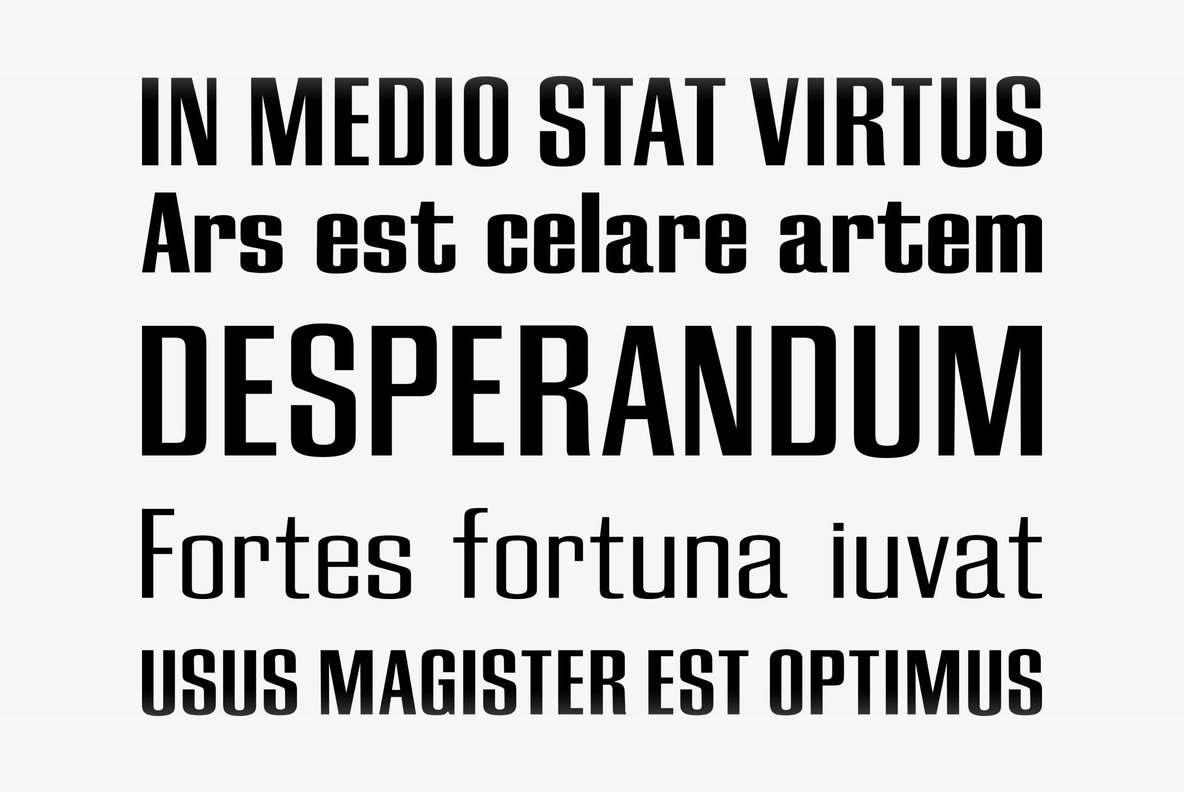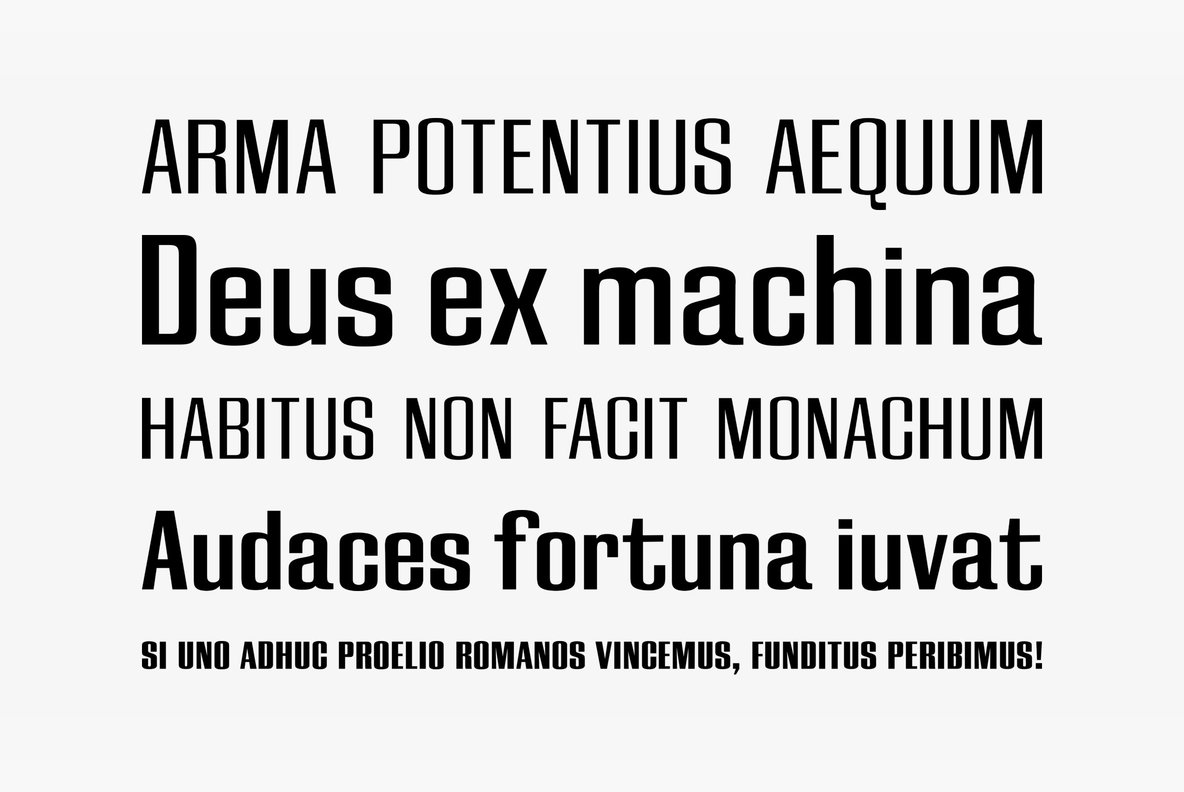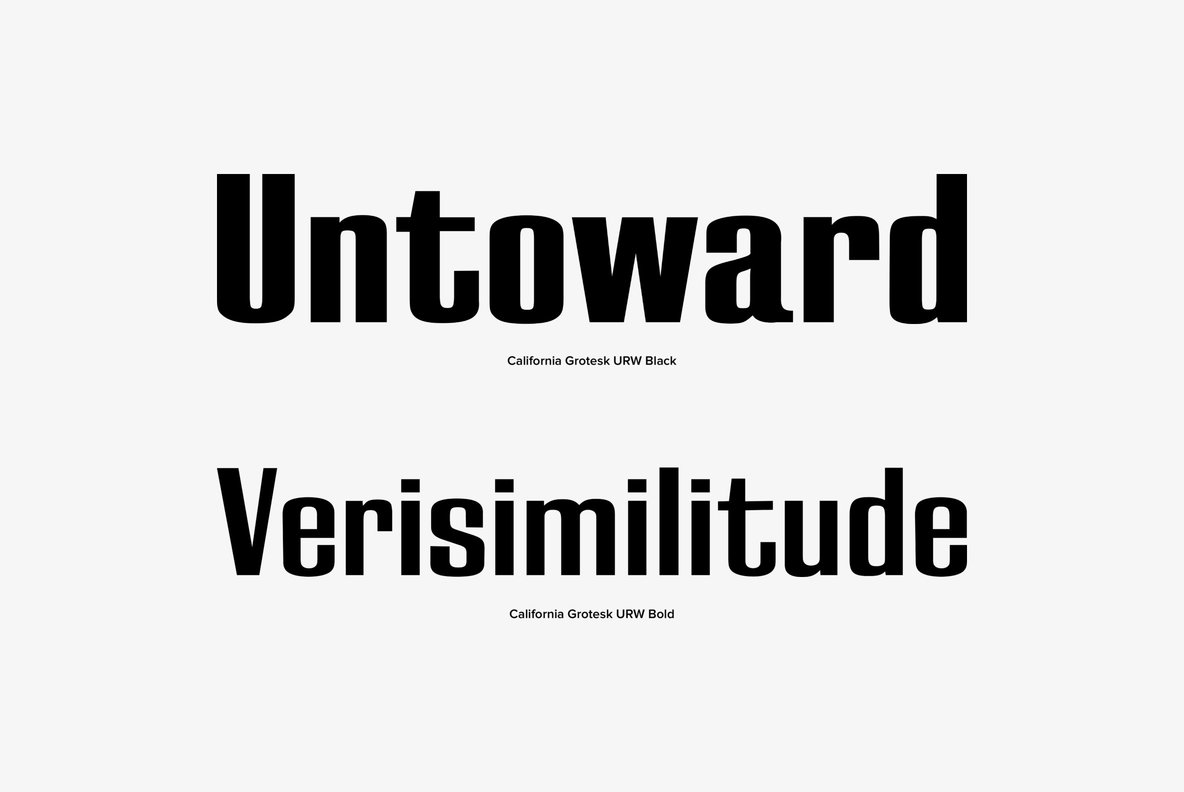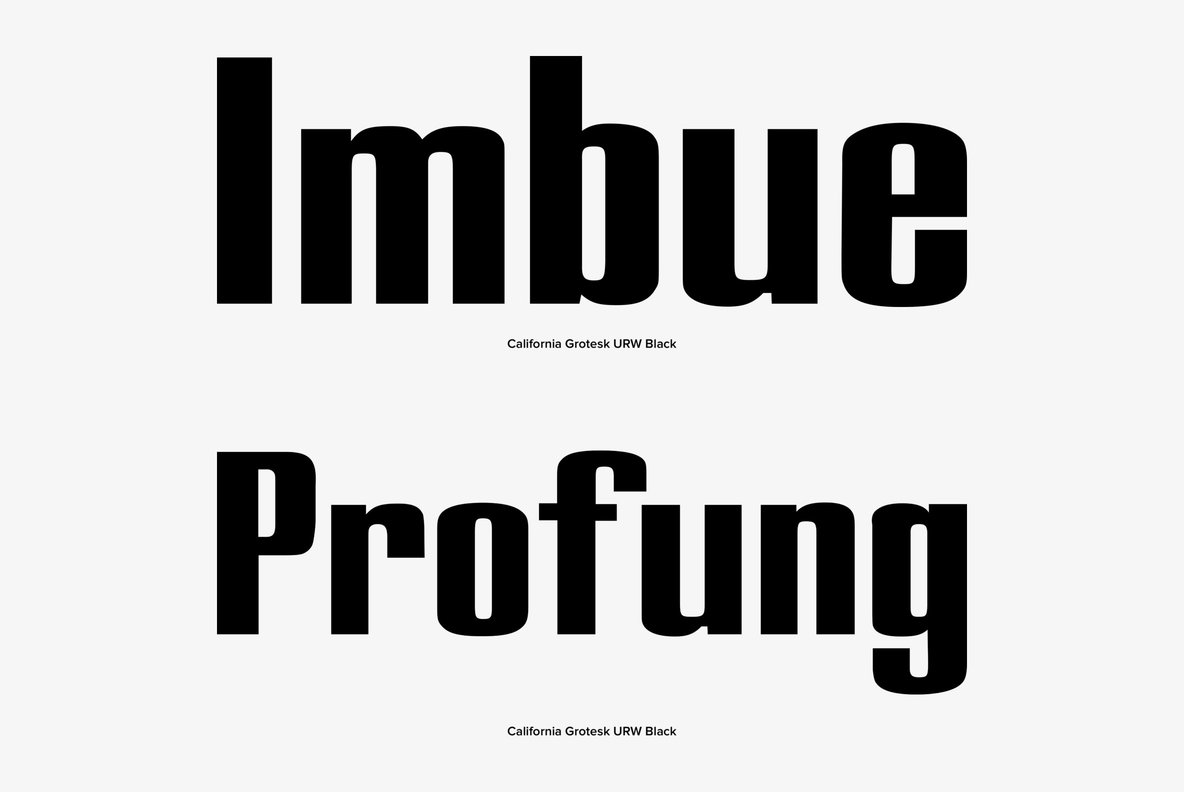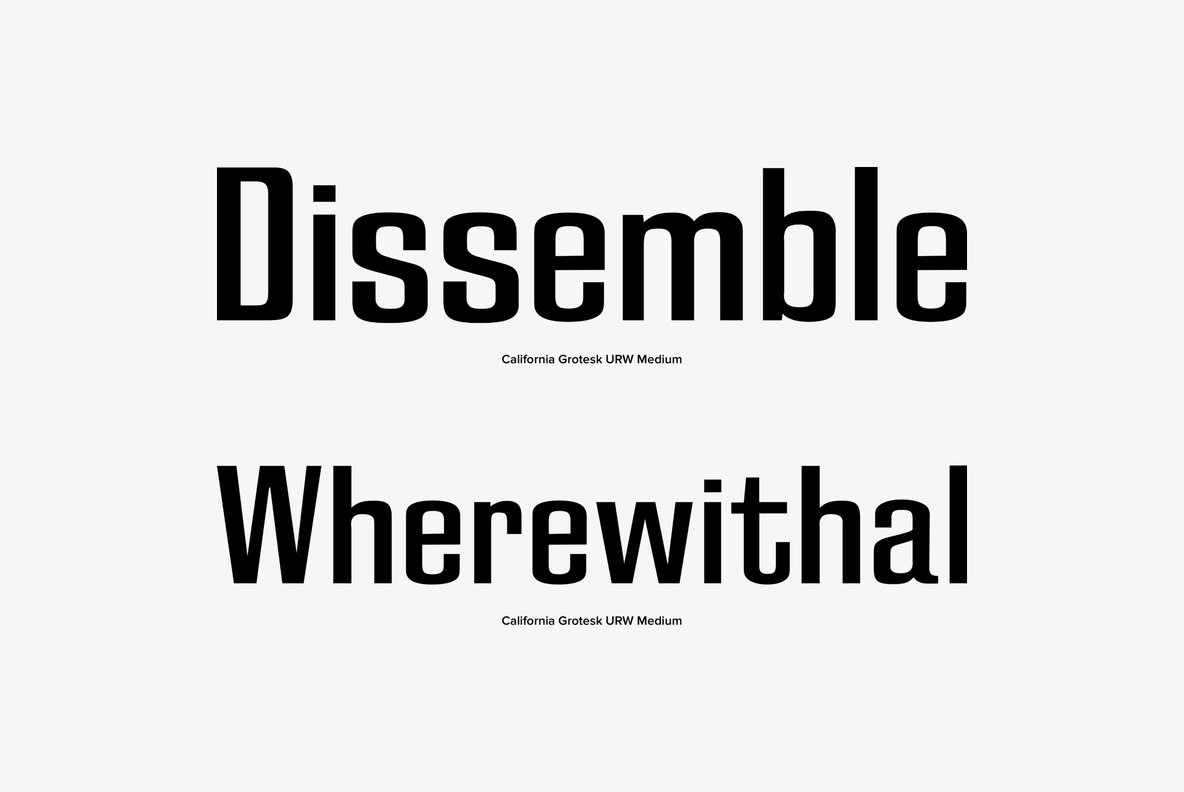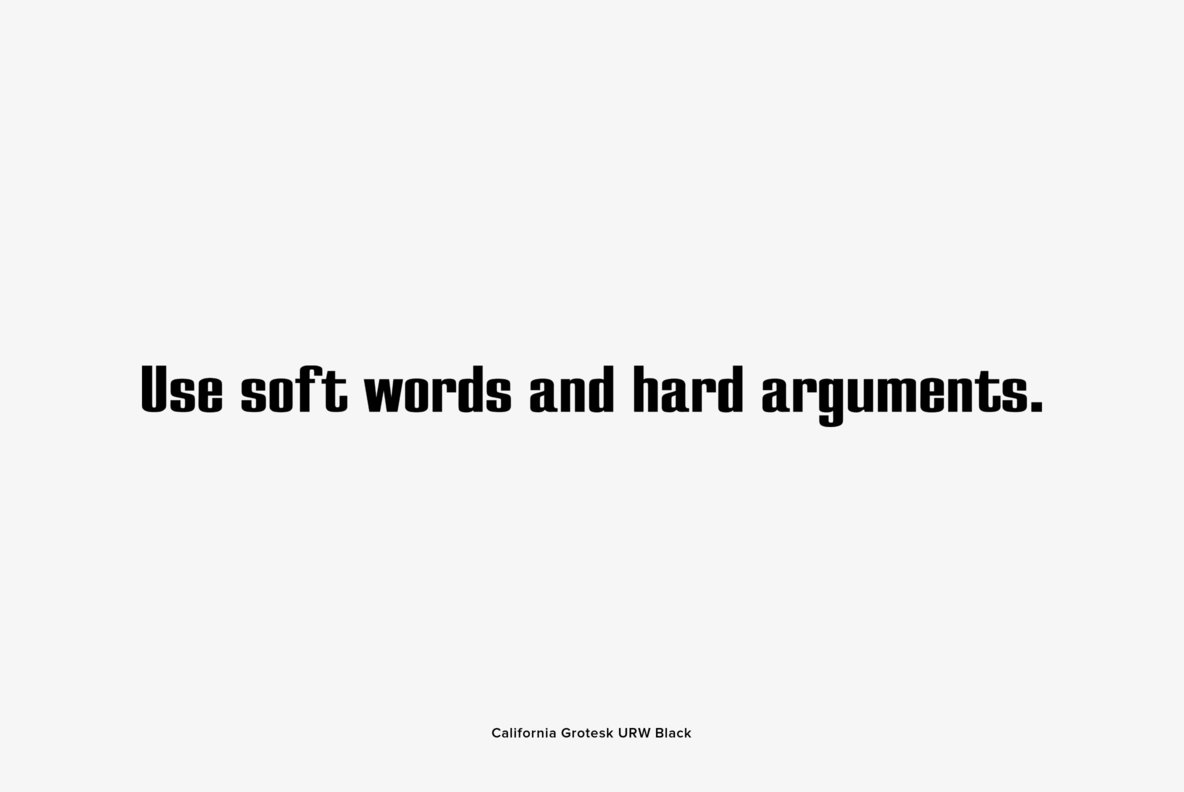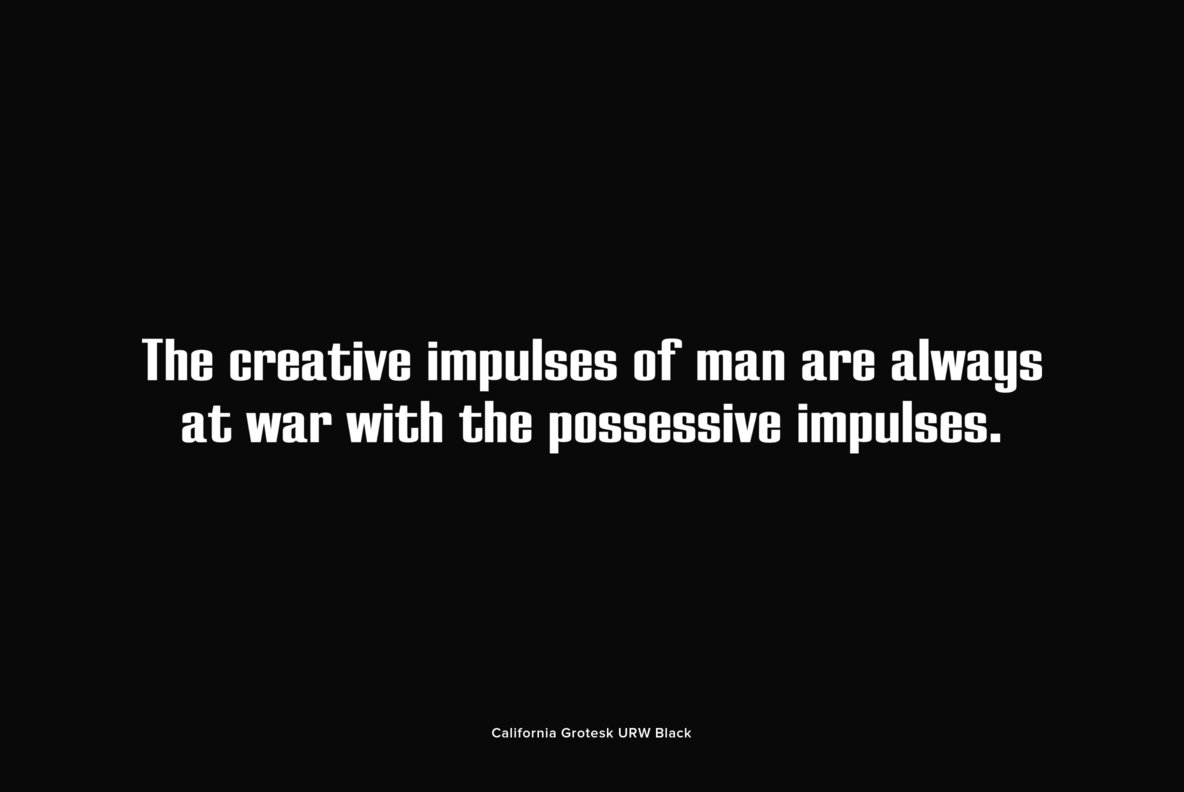
Designed and released by URW Studio in 1995, California Grotesk is a linear and elegant sans-serif font design. California Grotesk contains language support for West, East, Turkish, Baltic, and Romanian.